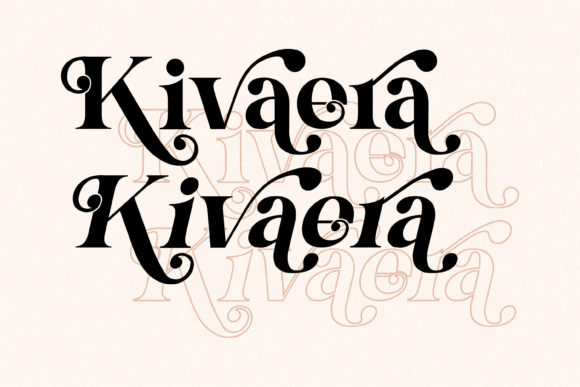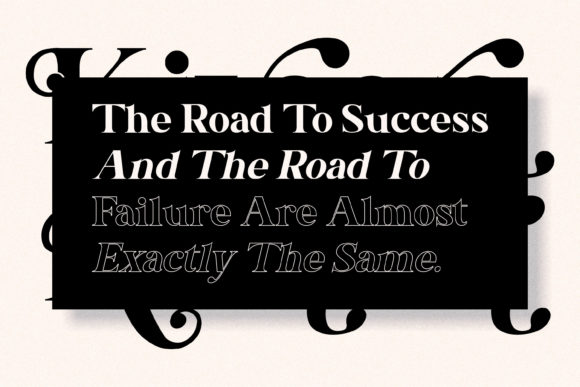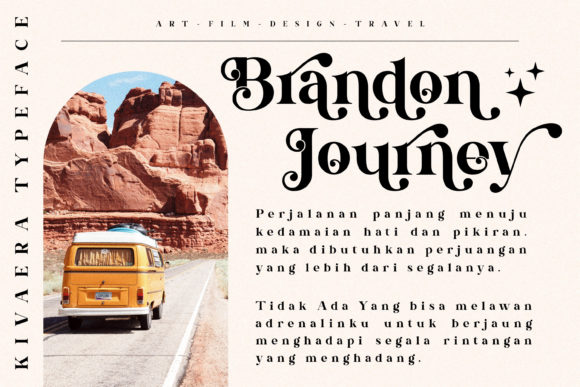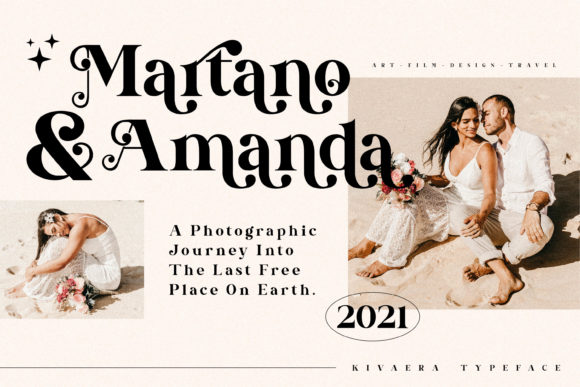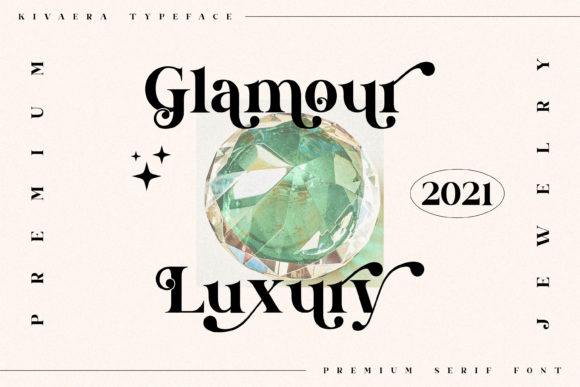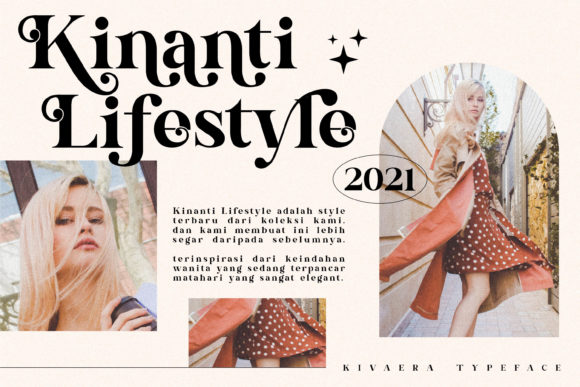
Introduction to Kivaera Font
Kivaera is a bold, elegant and thick lettered serif font.
This font is PUA encoded which means you can access all of the glyphs and swashes with ease Fall for its ravishing style and use it to create gorgeous designs.